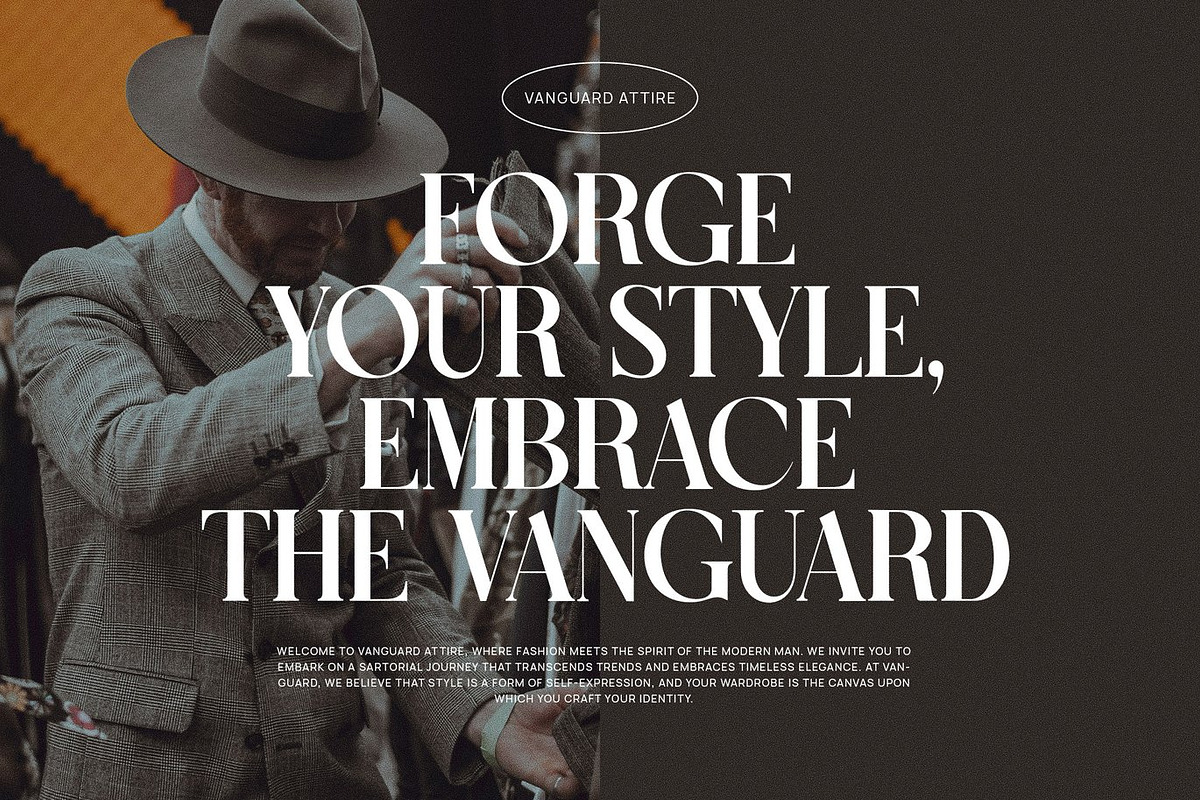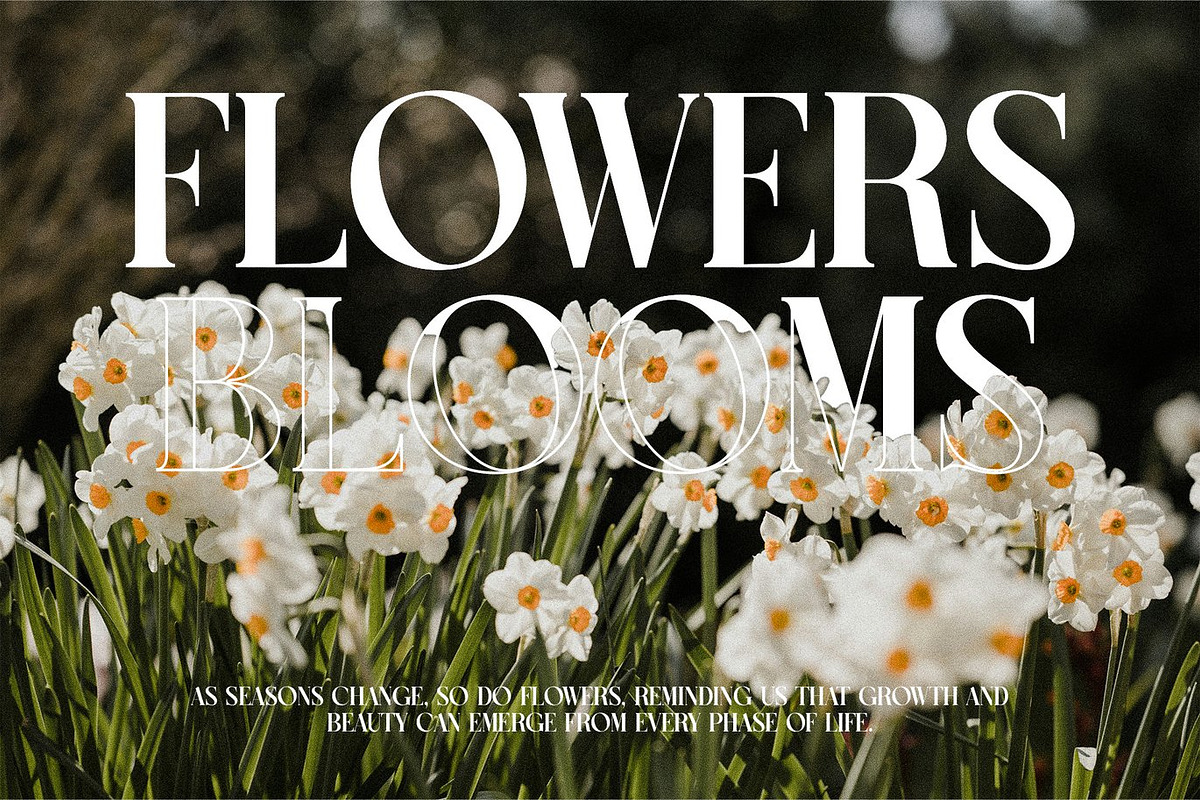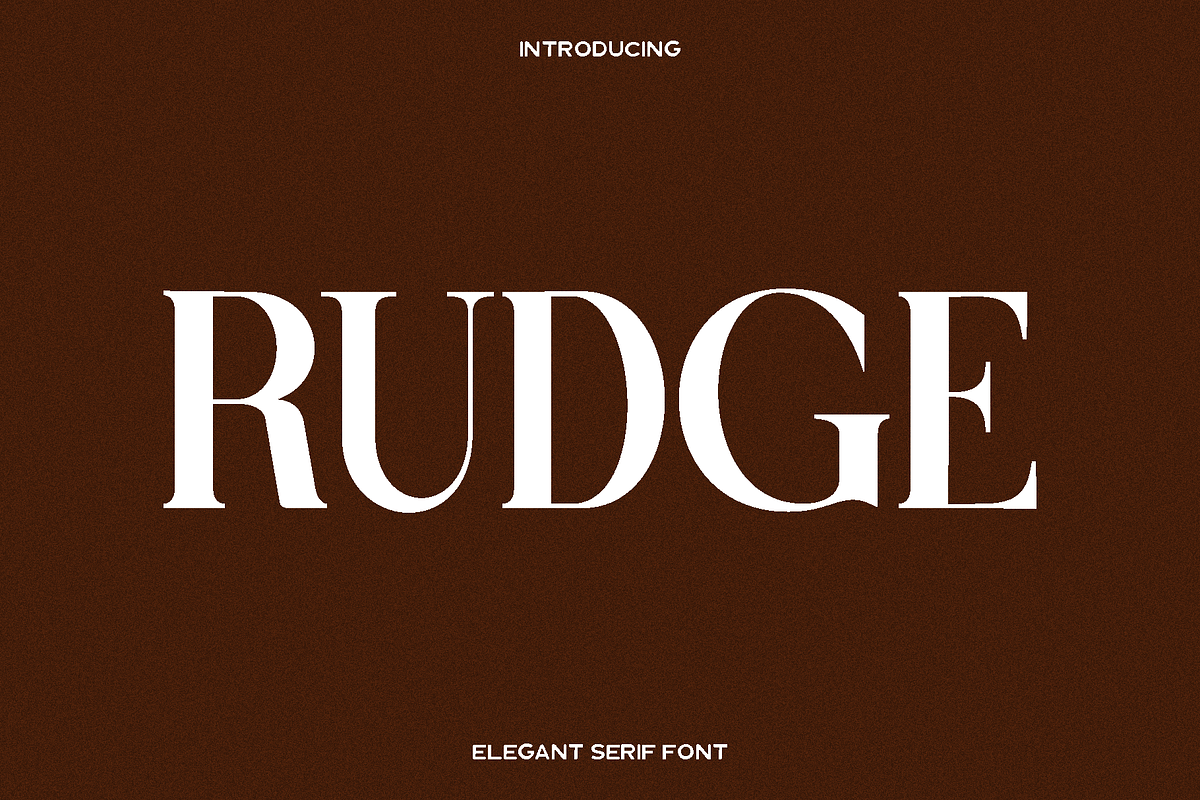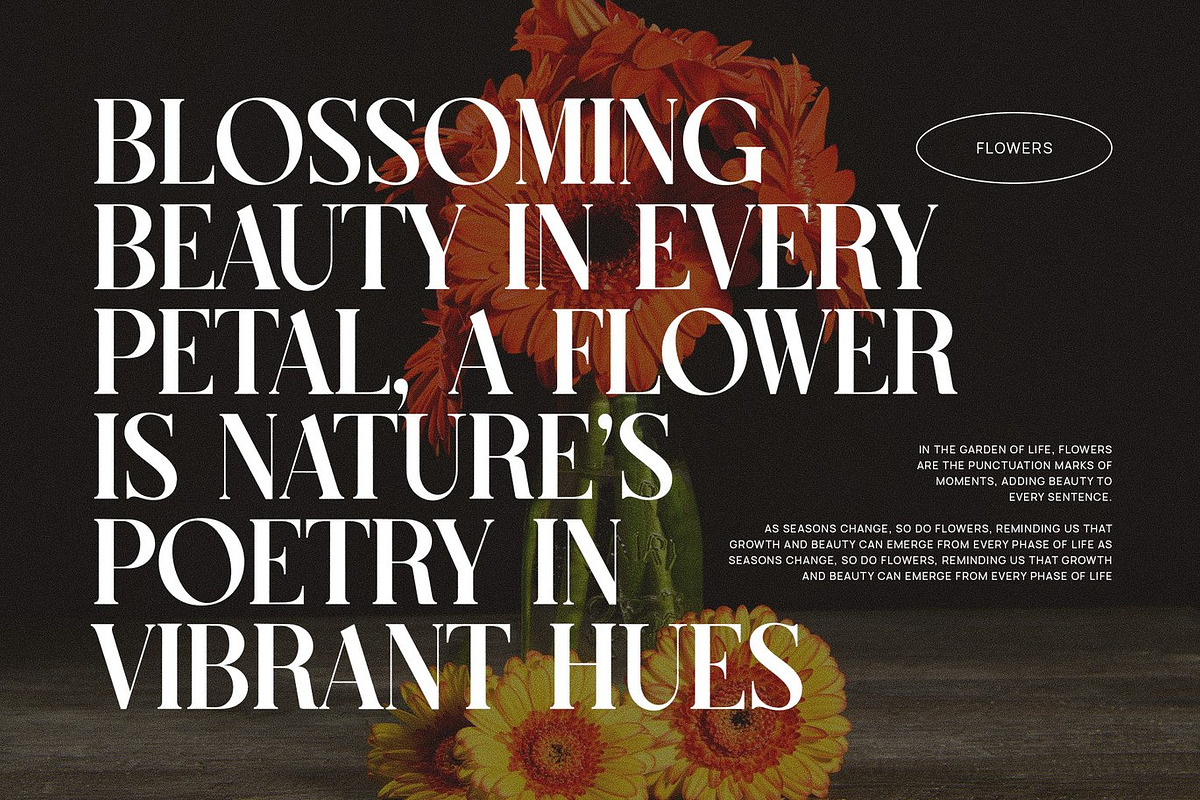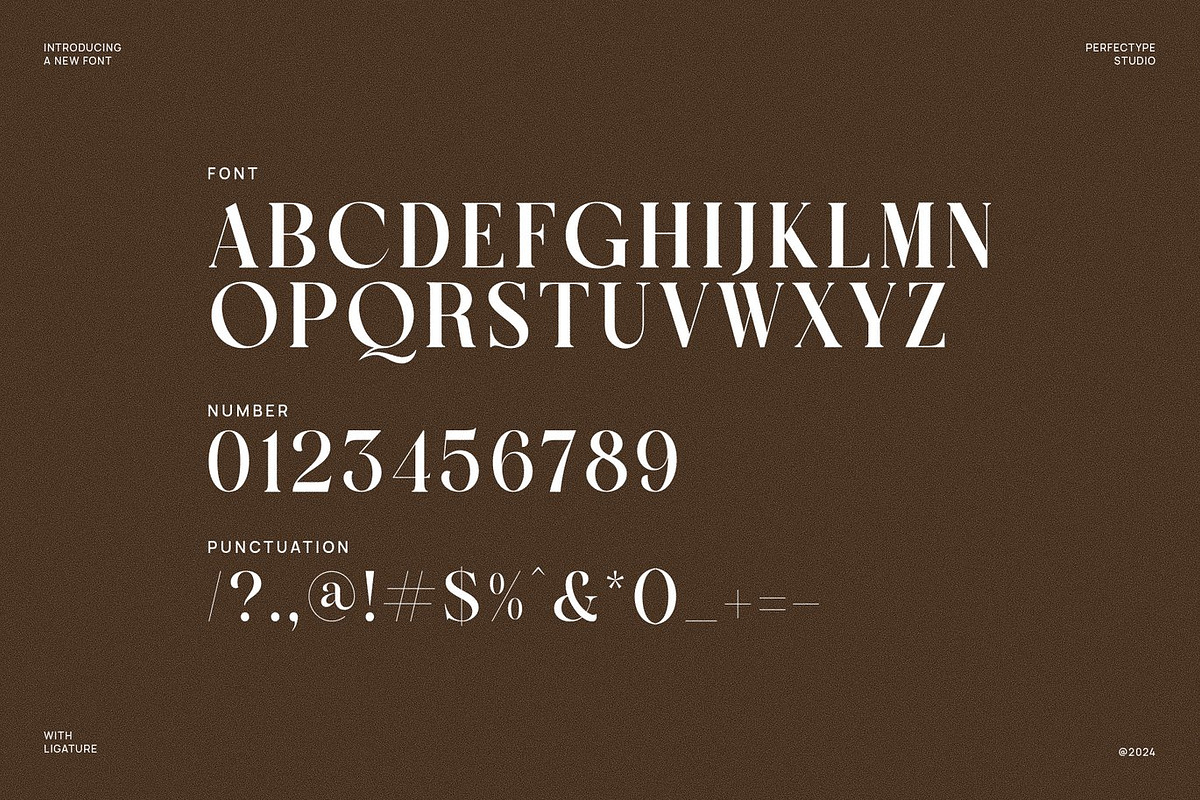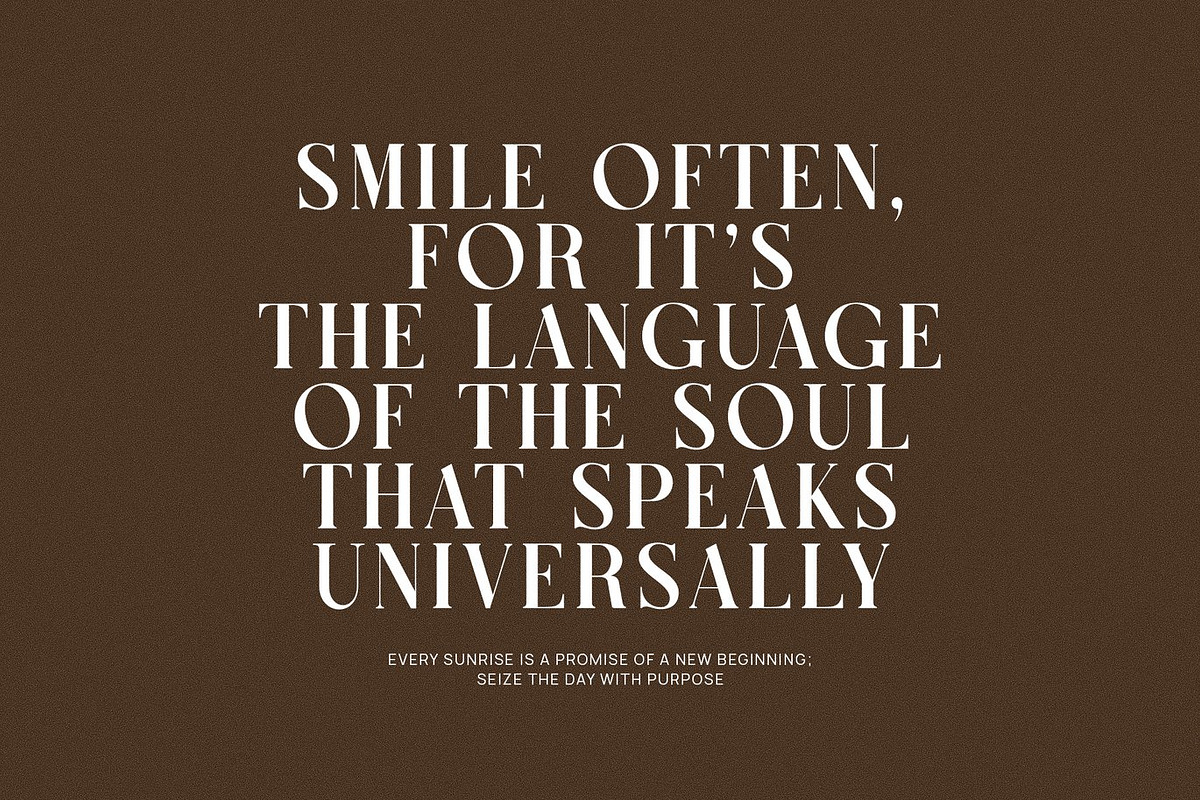
Rudge - Serif Font
Rudge is an elegant serif typeface created for designers who want to blend sophistication with modern style. Inspired by timeless luxury branding and refined typography, Rudge features graceful curves, sharp details, and balanced proportions that give every word a polished and high class appearance. Its aesthetic feels both classic and contemporary, making it a perfect choice for projects that need beauty, charm, and professional refinement.
This font shines in branding, logo design, wedding materials, product packaging, editorial layouts, and stylish social media content. Rudge’s high readability and smooth letterforms allow it to work beautifully in both large display text and smaller supporting details. Whether you are crafting a premium brand identity, designing elegant invitations, or creating a clean and modern advertising layout, Rudge adds an elevated touch that enhances the overall visual experience.
Rudge offers a sense of exclusivity and grace, helping your designs stand out with a luxurious impression. Its versatile structure adapts easily to a wide range of creative directions, making it an essential typeface for designers seeking a refined and reliable tool. With its classy personality and timeless appeal, Rudge transforms simple typography into sophisticated art.
Rudge Font Features:
• Standard characters
• Numerals and punctuation
• Accented Western European characters